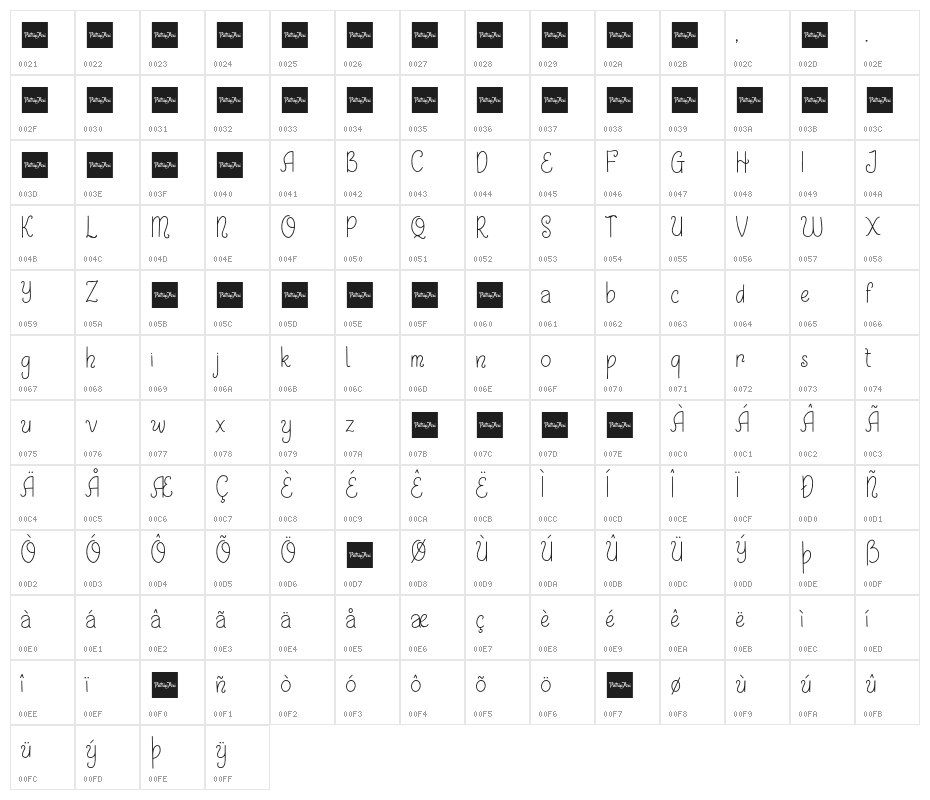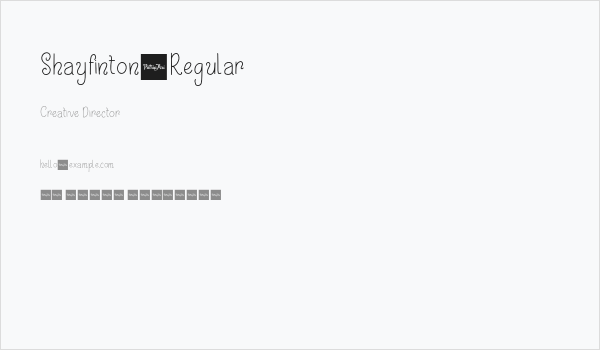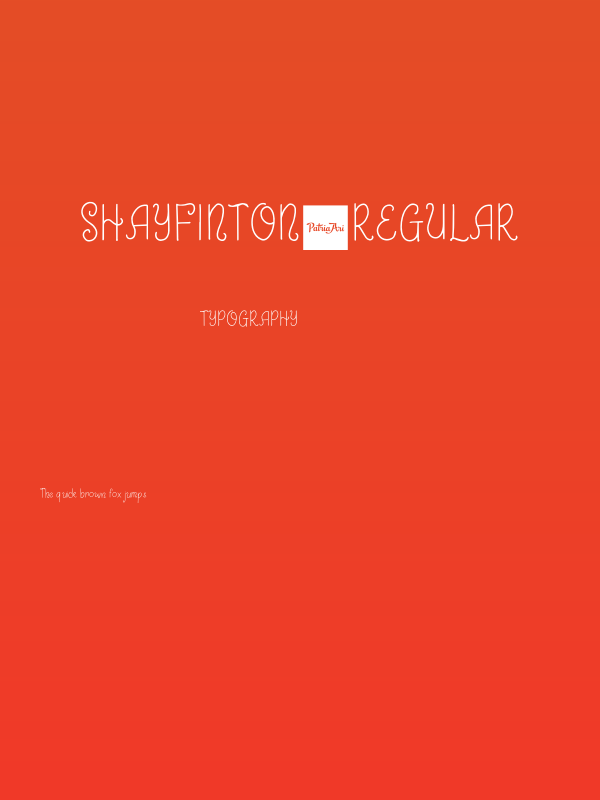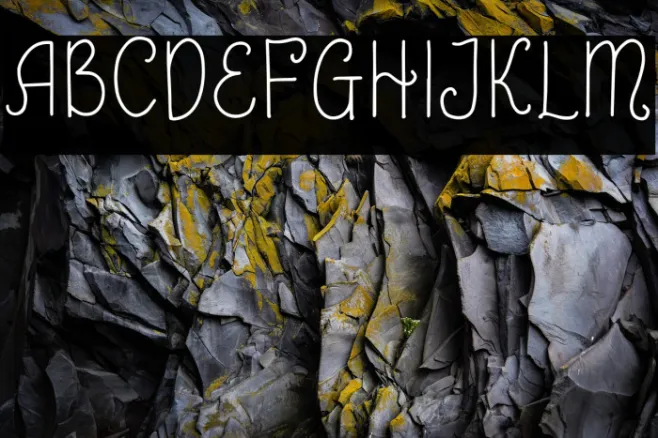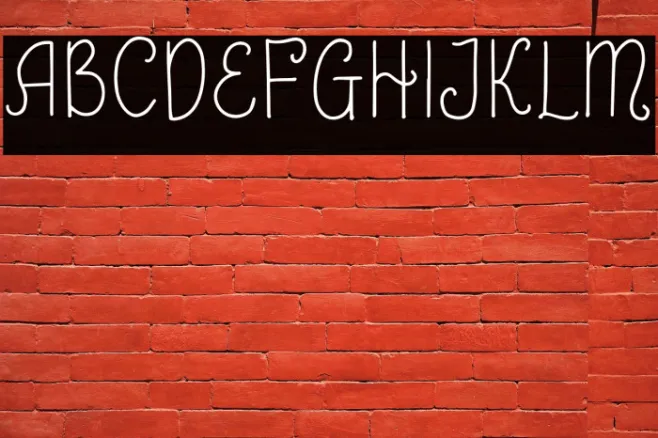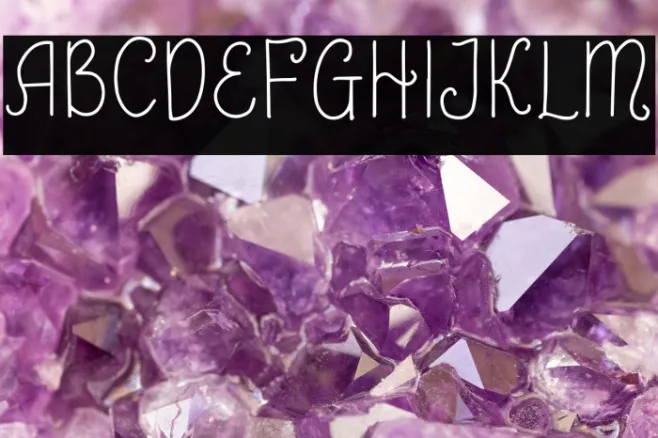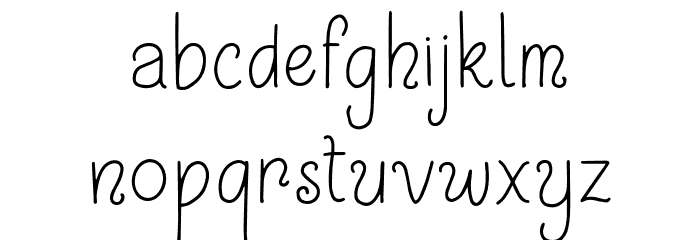
Shayfinton-Regular Font
Shayfinton-Regular Description
This font features a playful and whimsical style, characterized by its tall, narrow letters with gentle curves and loops. The strokes are consistent in thickness, providing a clean and uniform appearance. The uppercase letters are slightly more formal, while the lowercase letters exhibit a more casual, handwritten feel. The overall design is light and airy, making it suitable for projects that require a touch of elegance and creativity. The spacing between characters is balanced, ensuring readability while maintaining its unique charm.
| Overall Style | Whimsical |
| Use Case | Headlines, Creative projects, Invitations |
| Proposed Projects | Ideal for greeting cards, invitations, children's books, and creative branding projects. |